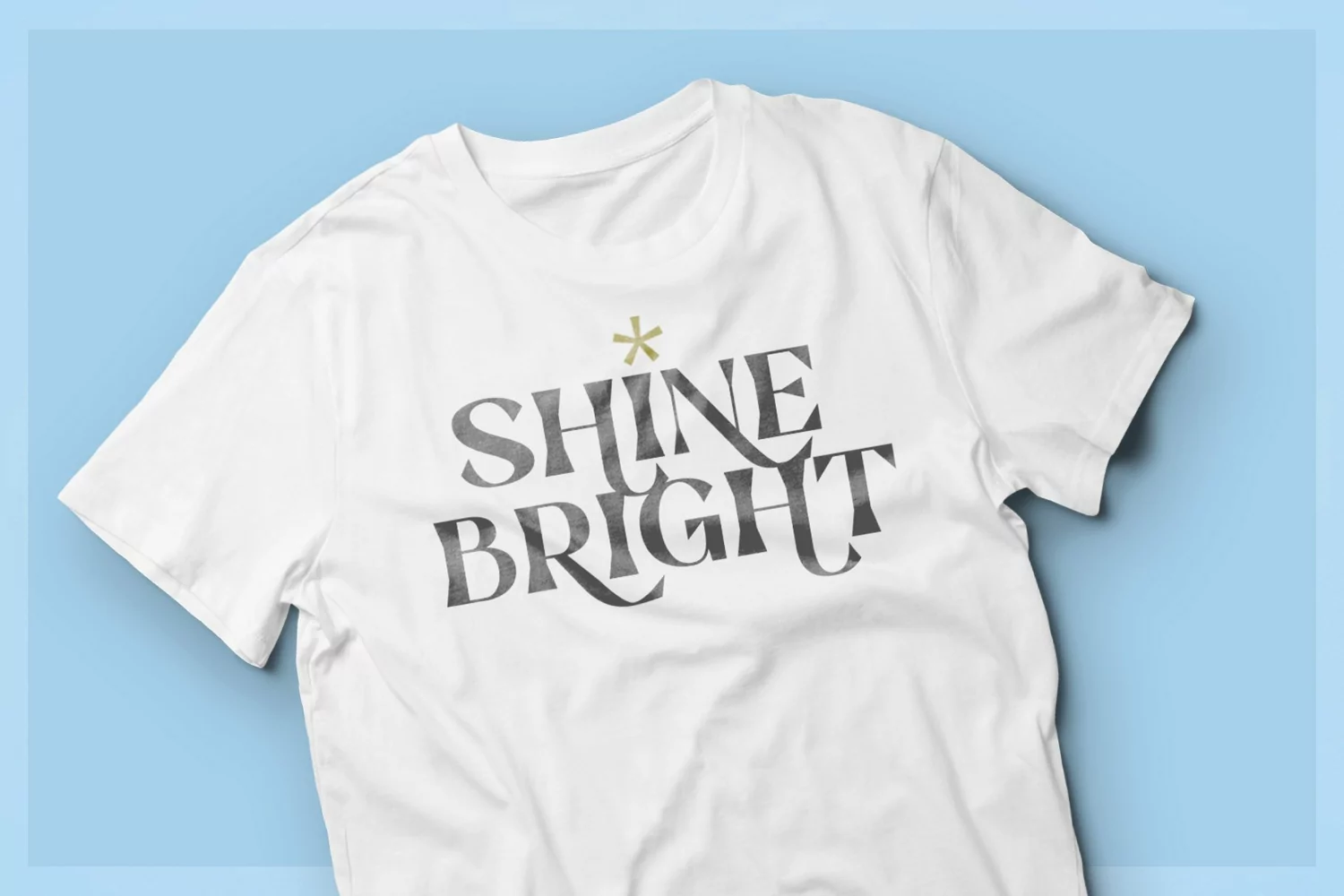
Royce is suitable for billboards or posters, logotypes, headlines or headings in magazines or websites and book covers as despite the modern image it retains the classic concept. The font is noticeable and catchy which makes it suitable for any graphic designs.